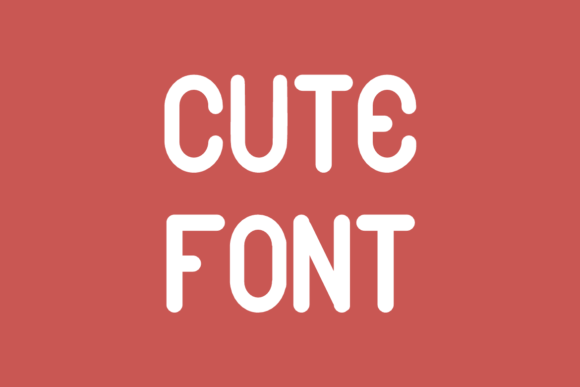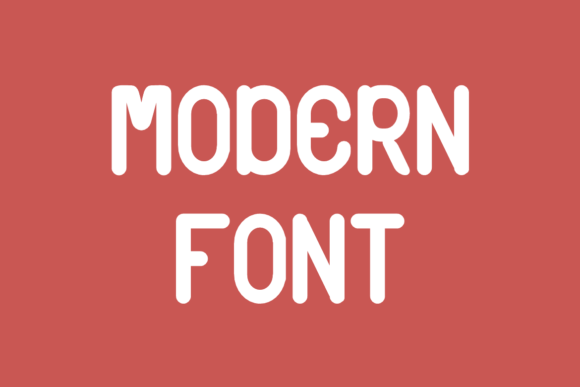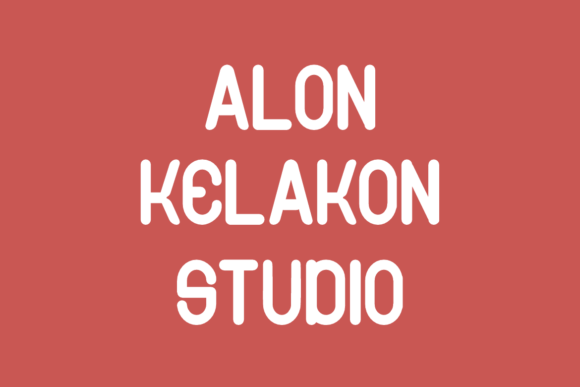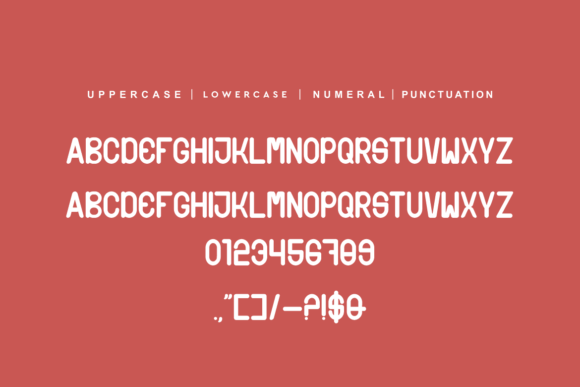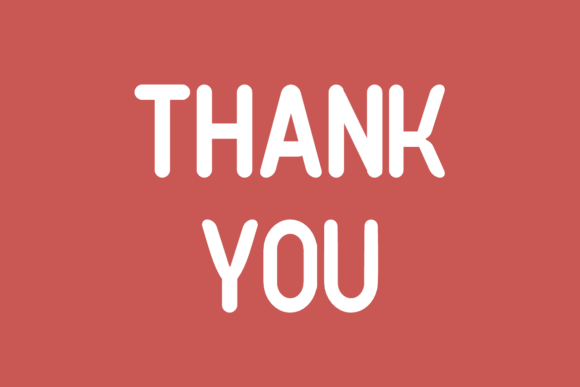
Introduction to Pochan Font
As a designer, you’ve likely experienced that moment of pure creative bliss when a project finally comes together, and the design elements seem to harmoniously align. The colors, the typography, the layout – everything just clicks. But have you ever stopped to think about the unsung heroes behind that magic moment? For us, it’s often a well-chosen font that makes all the difference.
Enter the Pochan Font, a bold and assertive rounded sans serif font that’s about to become your new go-to design resource. Whether you’re working on a high-quality logo, a free downloadable template, or a complex creative project, this font has the potential to elevate any creation and take it to the next level.
With its transparent background and versatile style, the Pochan Font is an incredibly valuable asset for designers looking to add a touch of sophistication and elegance to their work.
Key Features of Pochan Font
- High-quality design resource ideal for creative projects, including graphic design, digital art, and typography.
- Unique, hand-drawn style with a transparent background, allowing for easy customization and versatility.
- Designed with a resolution of 300 DPI, making it suitable for a variety of applications, from print to digital media.
- Perfect for designers looking for a distinctive and creative font to add a personal touch to their projects.
Honest Review: Pochan Font
I recently had the opportunity to work with the Pochan Font, and I must say it’s been a game-changer for my creative projects. This high-quality font has been a reliable design resource that has consistently delivered excellent results.
- What works well: ✨ The Pochan Font has a clean and modern aesthetic that’s perfect for a variety of design applications. Its transparent background makes it easy to layer and blend with other design elements.
- What works well: ✨ The font is highly customizable, allowing me to adjust the spacing and size to fit my specific design needs.
- ⚠️ The font may not be suitable for small text sizes, as it can become difficult to read.
- ⚠️ Some users may find the font’s modern aesthetic too trendy or overused.
Overall, I’m thoroughly impressed with the Pochan Font. Its high-quality design and transparent background make it a valuable resource for any creative project. While it may have some limitations, I believe the benefits far outweigh the drawbacks.
Tips for Getting the Most Out of Pochan Font
To get the most out of the Pochan Font, use it on a transparent background to create a clean and modern design. Experiment with different font sizes and styles to add visual interest to your project. You can also use the Pochan Font in combination with other design elements to create a unique and eye-catching design.
Common Use Cases for Pochan Font
The Pochan Font is ideal for a variety of creative projects, including digital art, graphic design, and web design. It’s also a great choice for social media graphics, blog posts, and marketing materials. With its high-quality design and transparent background, the Pochan Font is a versatile resource that can help you create professional-looking designs.